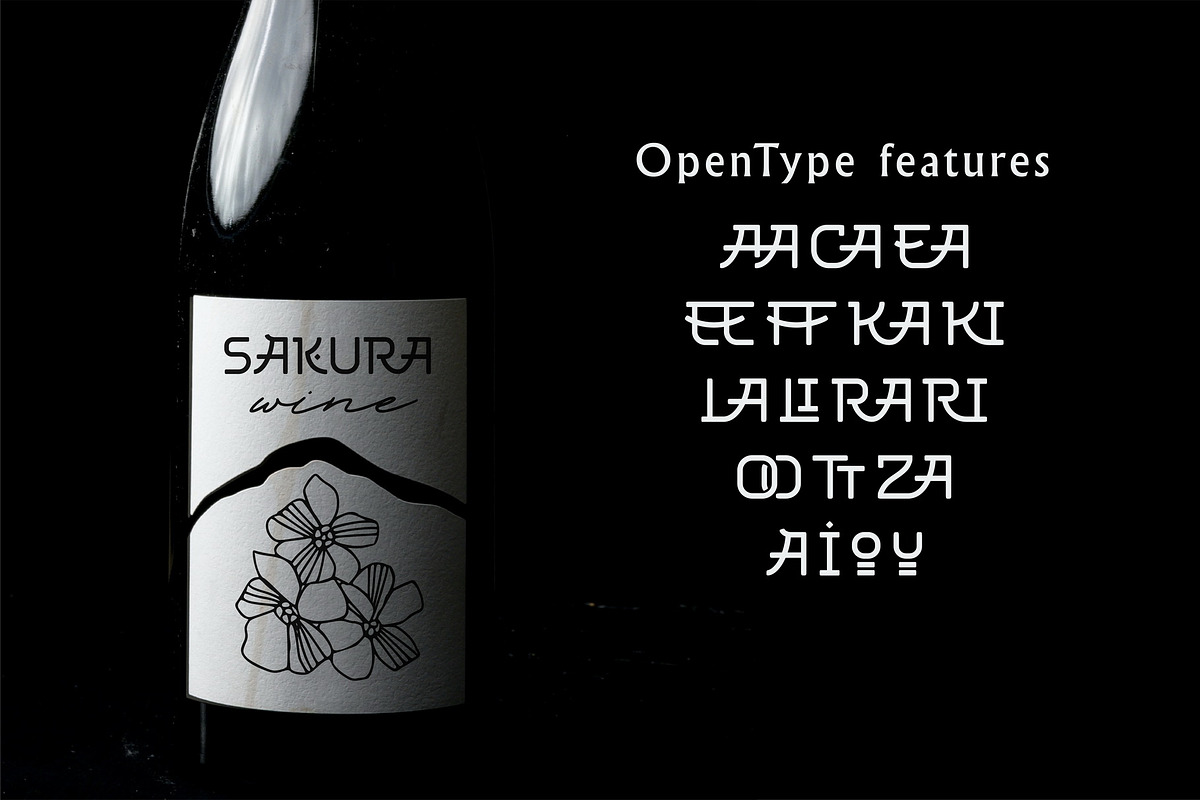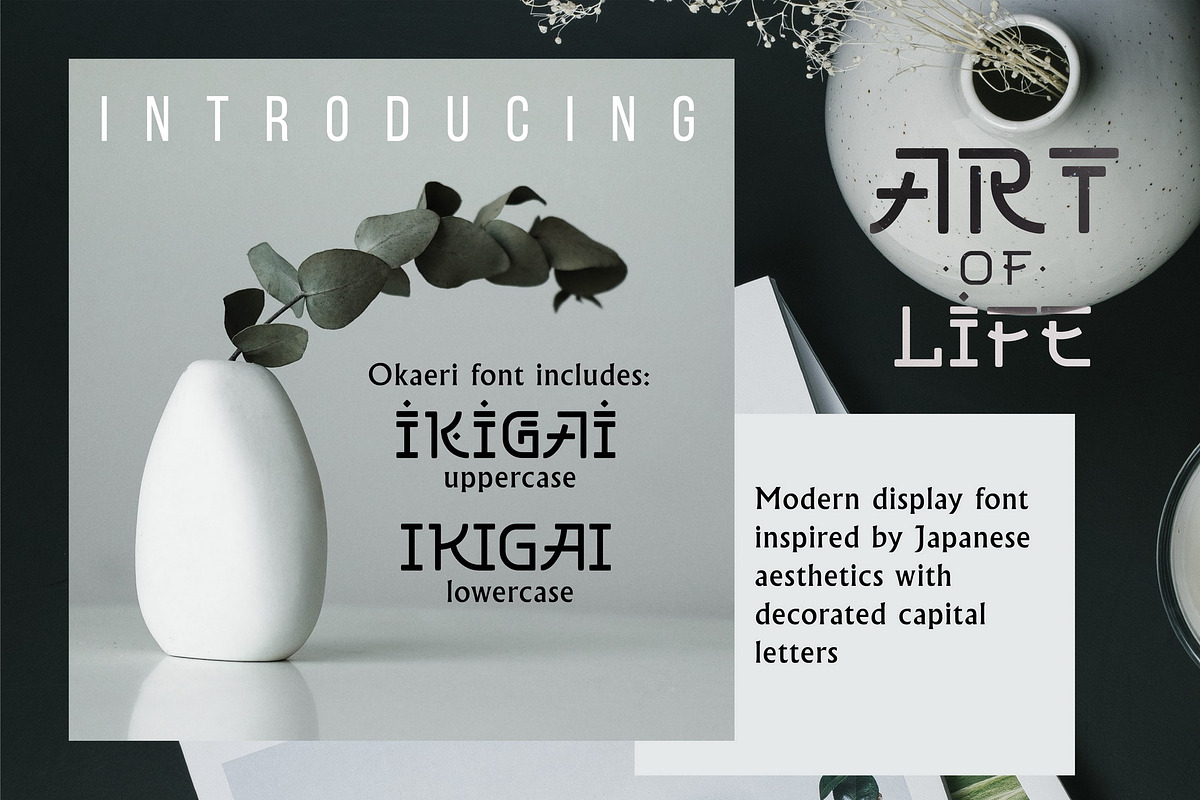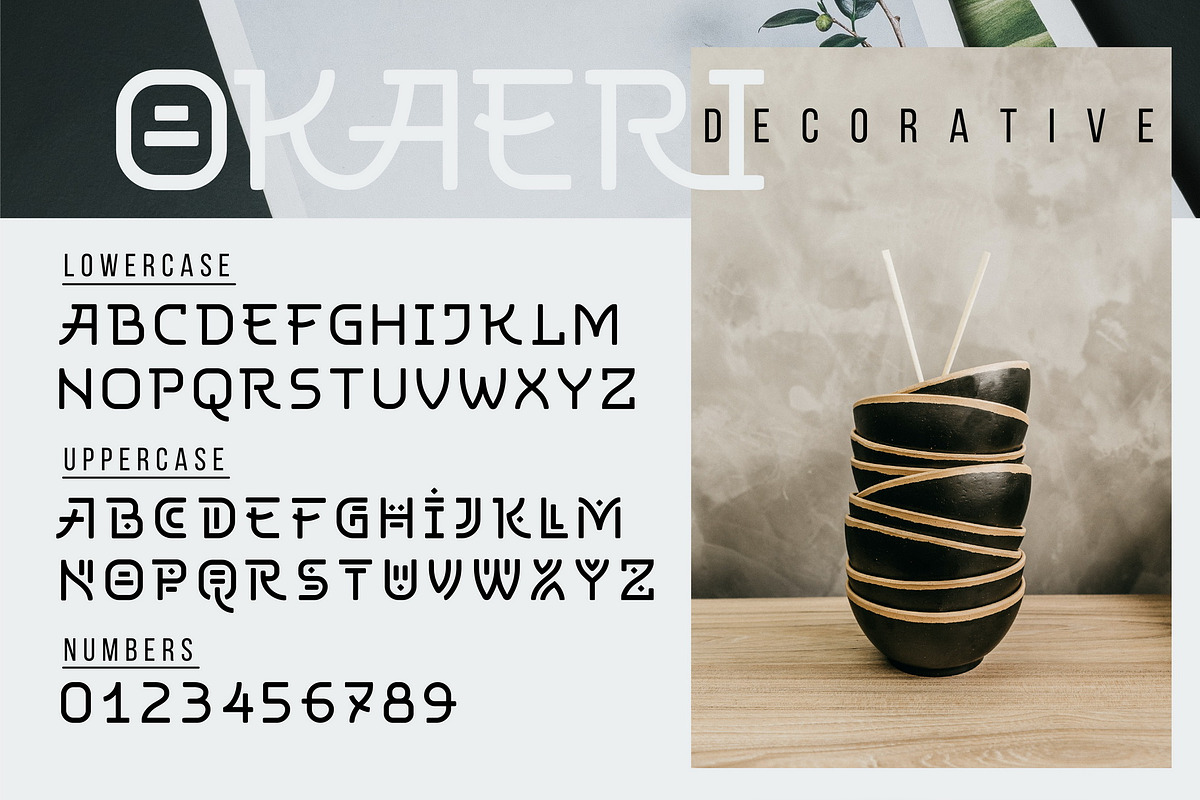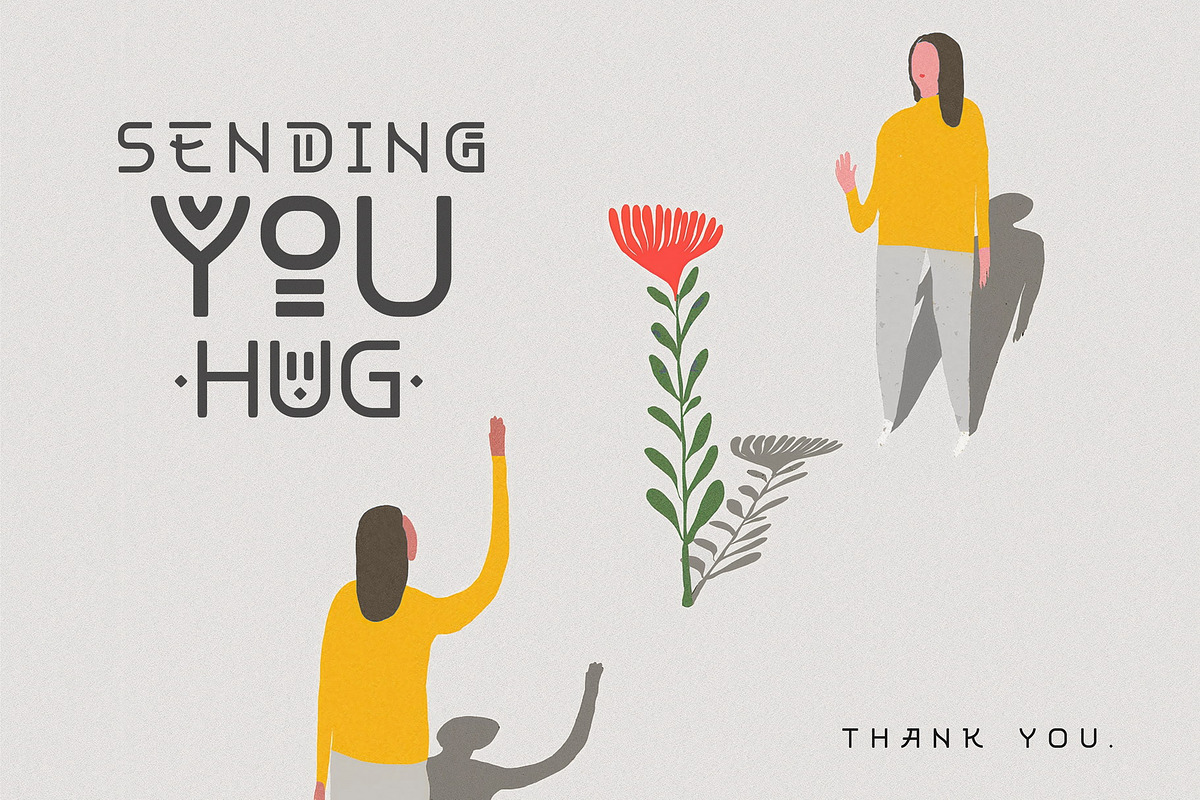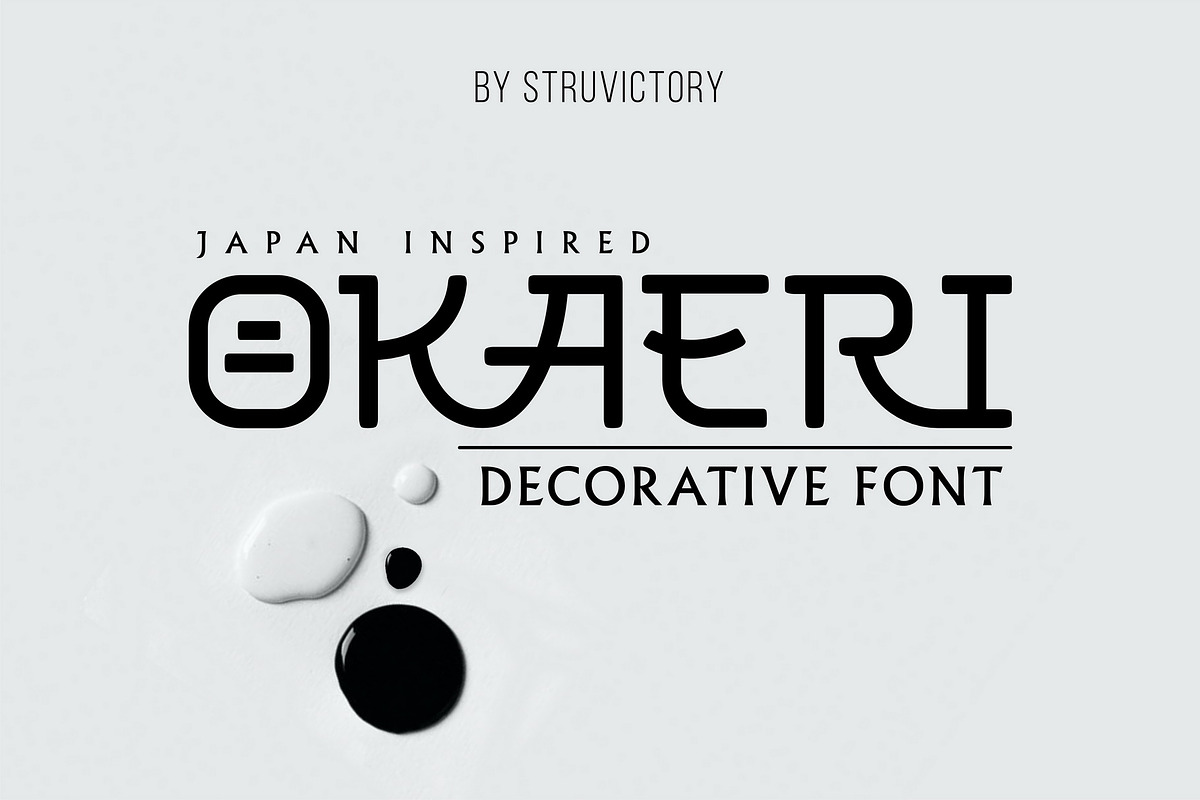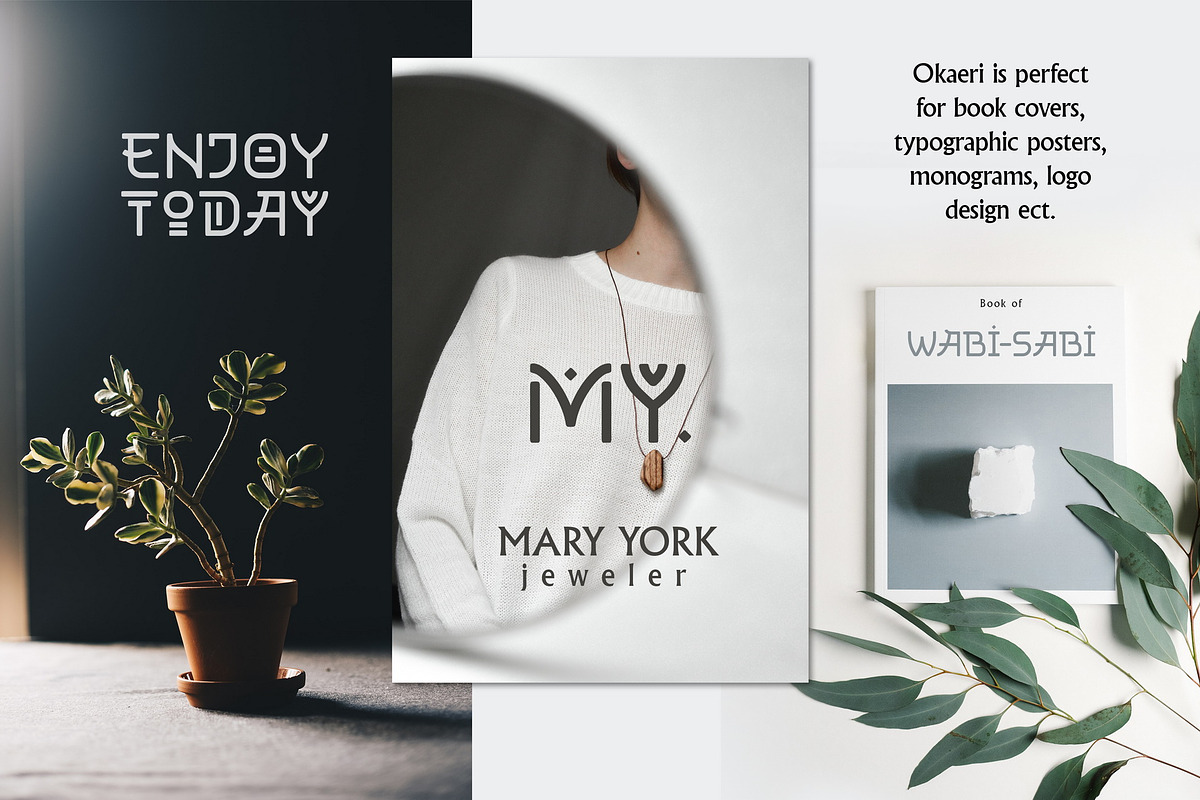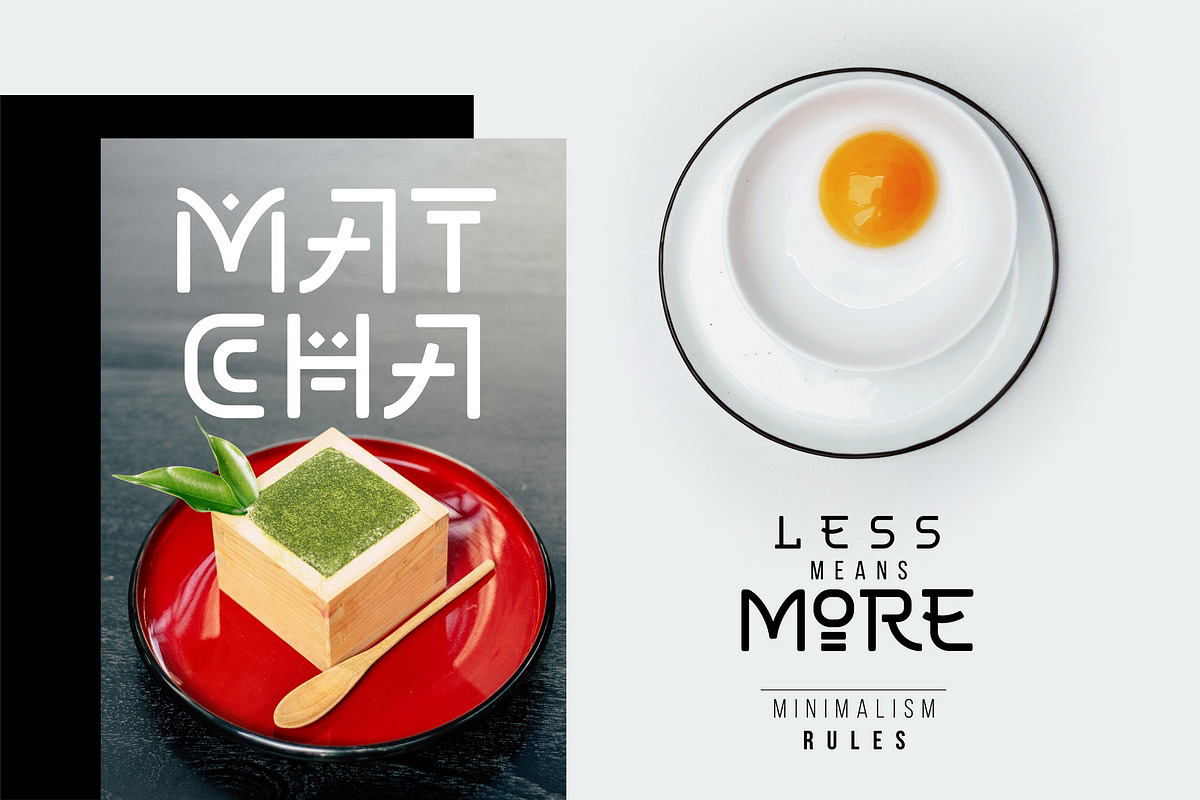
Okaeri - Japan Inspired Display Font
Okaeri is decorative display font inspired by Japanese aesthetics, uppercase is decorated with oriental patterns. The font includes ligatures and alternative glyphs. Okaeri is easy to use in various design programs or without any program.
Okaeri is suitable for typographic posters in oriental style. The font is also suitable for menu and restaurant design, tourist products, magazine and book covers, thematic events design. The font works great both for printing clothes and craft products branding and packaging. Also use individual letters to create logos and monograms.
OKAERI includes stylistic alternates for symbols: a, i, o, u. There are also ligatures: aa, ca, ea, ee, ff, ka, ki, la, li, ra, ri, oo, tt, za.